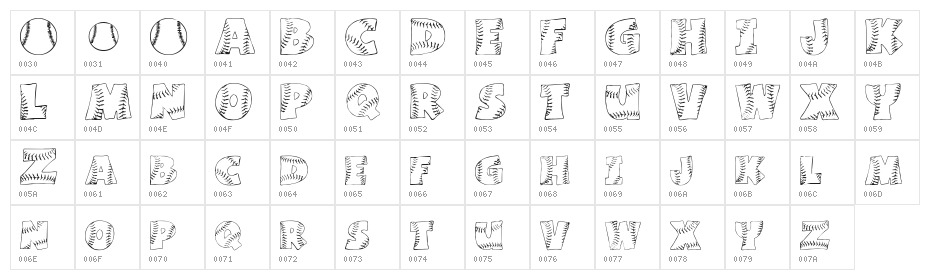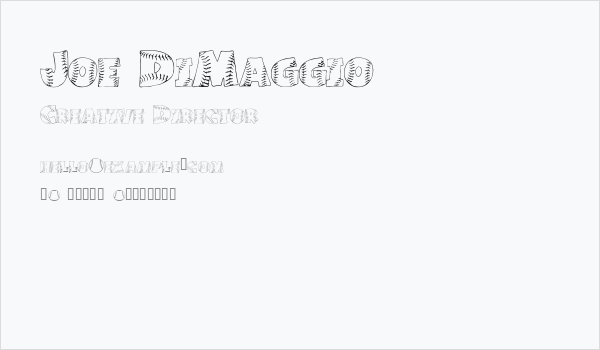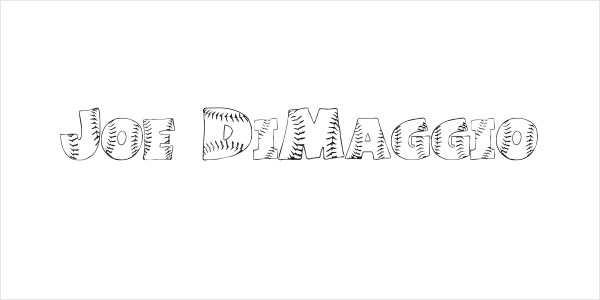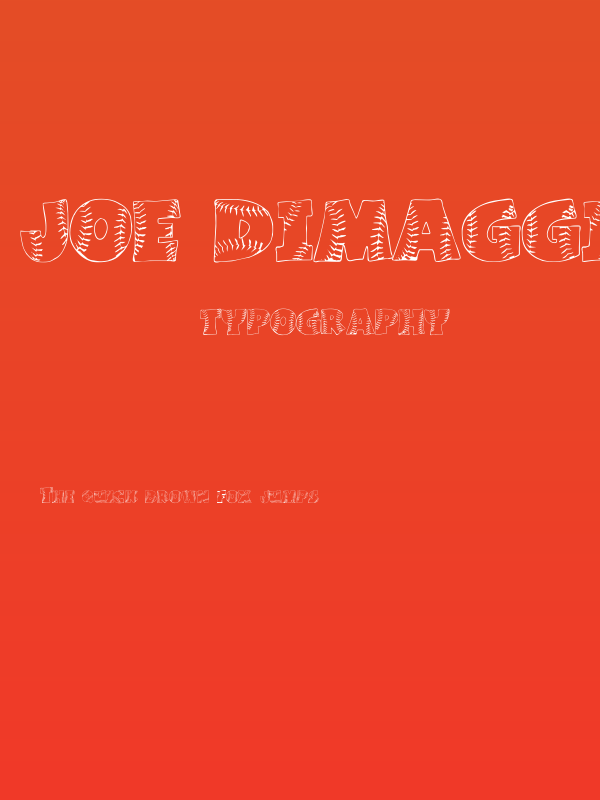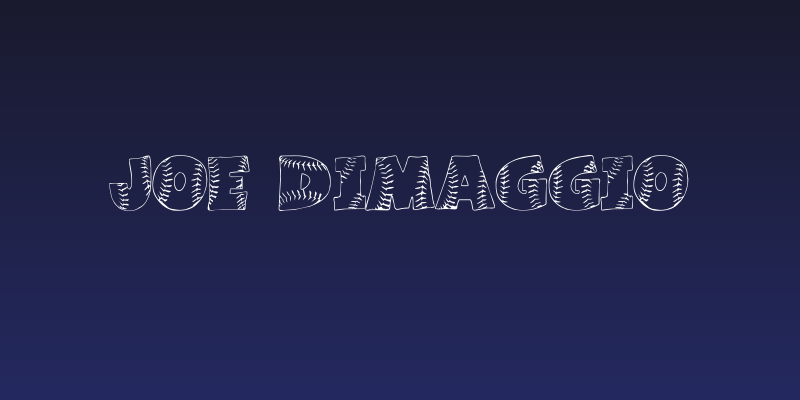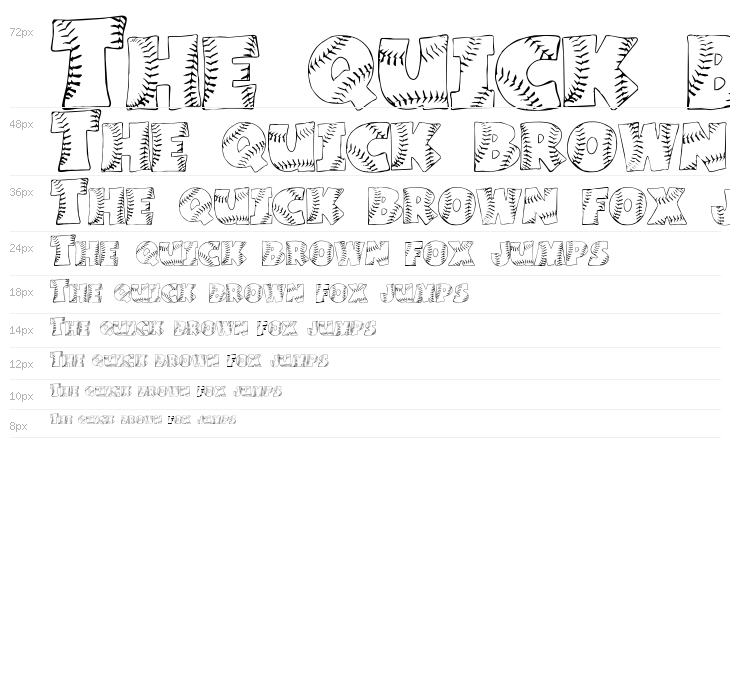
Joe DiMaggio Font
Joe DiMaggio Description
This font features a playful and sporty design, with each letter incorporating elements reminiscent of baseball stitching. The bold, uppercase letters are filled with intricate stitch patterns, giving a textured and dynamic appearance. The font evokes a sense of movement and energy, making it ideal for sports-related themes. The characters are evenly spaced, ensuring readability while maintaining a decorative flair. The unique style captures the essence of baseball, making it perfect for projects that aim to convey a sense of fun and athleticism.
| Overall Style | Sporty, Playful, Decorative |
| Proposed Projects | Ideal for sports team branding, baseball event posters, merchandise, and playful graphic designs. |